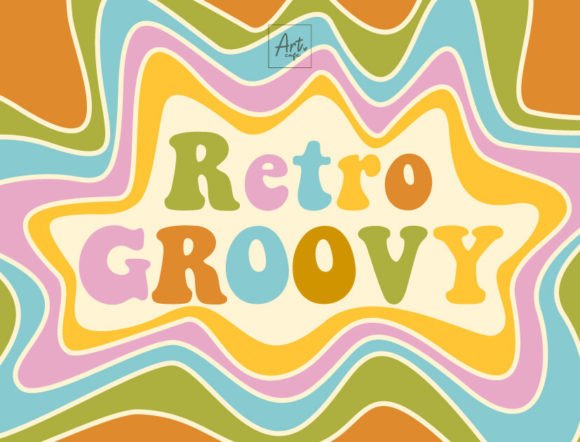
Retro Groovy, Funky 70s Style Bold Display Font
Retro Groovy is a charming display font designed to bring a touch of vintage flair and youthful energy to your creative projects. With its bold, groovy letterforms and retro‑inspired curves, this font evokes nostalgia while staying fresh and contemporary — ideal for designs aiming for a fun, playful, or retro aesthetic. Whether you are designing for apparel, posters, social media, or branding, Retro Groovy offers a distinctive look that stands out.
- PUA‑encoded glyphs (special characters and alternates — accessible in many design apps)
Retro Groovy gives projects a nostalgic, fun character without sacrificing versatility. Its bold letterforms and playful design make it especially suitable for eye‑catching designs — whether for apparel, posters, or digital graphics. Because it’s PUA‑encoded, you get access to extra glyphs and special characters for creative flexibility. Best of all: it’s free to download and works across all major operating systems and design platforms.
Q: Does the font include special characters and alternates?
A: Yes — Retro Groovy includes a full set of glyphs and is PUA‑encoded to give you access to special characters and alternates in design software.
| Style / Vibe | Retro, playful, groovy, vintage‑inspired | Neutral modern display | Classic serif display |